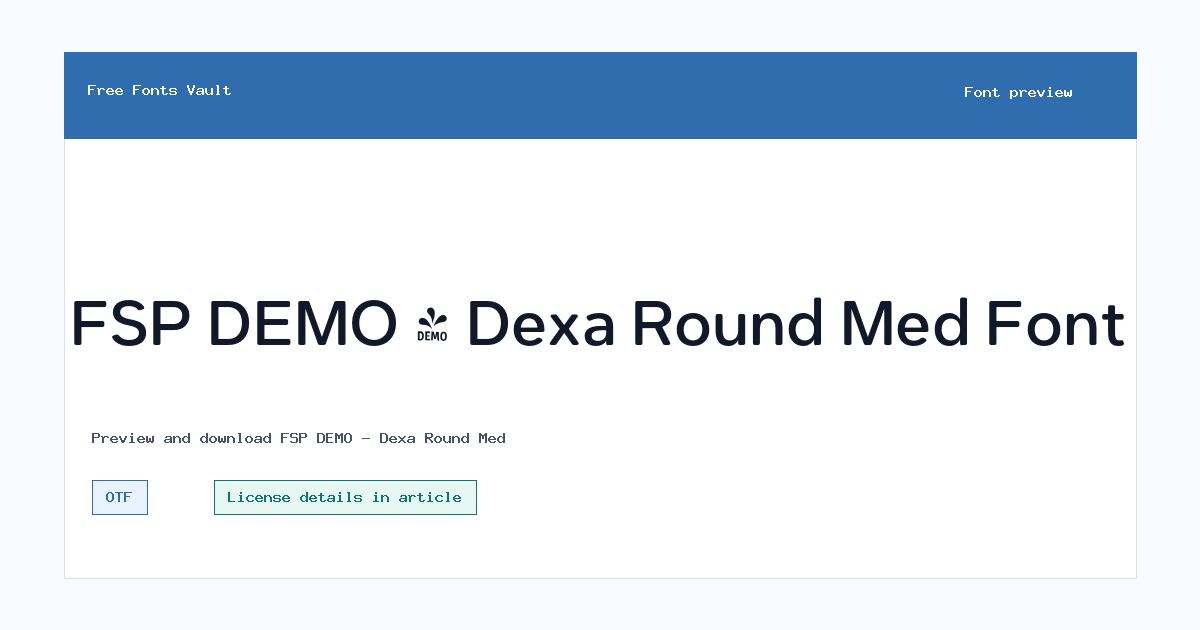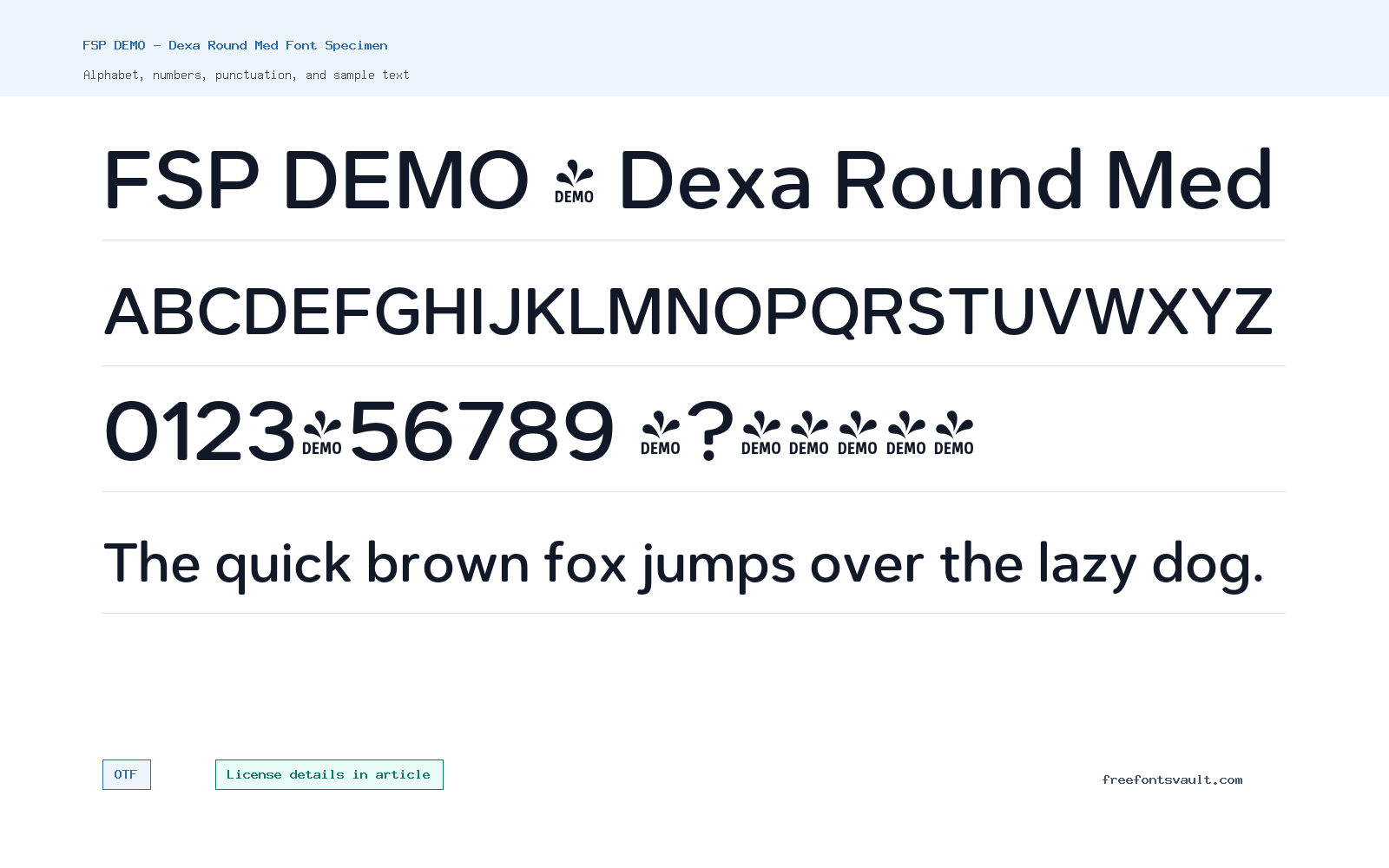
FSP DEMO - Dexa Round Med
- Designer Ceyhun Birinci
- Foundry Artegra
FSP DEMO – Dexa Round Med font.
Dexa Round Med is a medium-weight OTF demo font credited to Ceyhun Birinci and Artegra. It is a good candidate when you want rounded text that feels friendly, steady, and stronger than a regular weight without becoming heavy.
About Dexa Round Med
The file name identifies this as a Fontspring DEMO cut of Dexa Round at 500 weight. That makes the font useful for previewing the family style, testing words, and building early layout mockups. The rounded medium shape can work well for headings, labels, navigation ideas, badges, packaging drafts, and social graphics where the text should feel approachable but still clear.
Use the preview box with real project wording instead of judging from the sample alone. Rounded medium fonts often look clean in one or two words, but spacing, punctuation, and numbers matter when the text becomes a label or UI element. Test uppercase, lowercase, dates, product names, and short button text before deciding whether the tone is right.
- Normal style with 500 medium weight
- Rounded family naming, useful for friendly display testing
- Credited to Ceyhun Birinci and Artegra
- Friendly headings, badges, labels, and short UI text
- Packaging mockups, social graphics, and compact title layouts
- Design drafts that need rounded medium-weight lettering
Dexa Round Med is credited to Ceyhun Birinci, with Artegra listed as the foundry.
Try short UI-like text such as labels, buttons, and names at the size you plan to use. If the rounded forms feel too soft for body copy, pair the font with a plainer sans serif and reserve Dexa Round Med for the accent line. For UI mockups, compare it beside the body font you plan to use; the rounded medium weight should support the interface without making every label compete for attention.
Who is credited for Dexa Round Med?
The font is credited to Ceyhun Birinci, with Artegra named as the foundry.